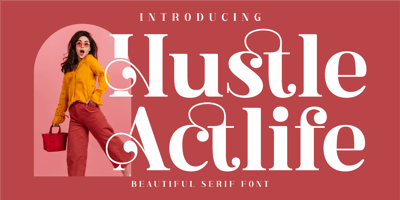
Hustle Actlife
Hustle Actlife font
Hustle Actlife Font Family was designed by Heru Utama Putra and published by Letterena Studios. Hustle Actlife contains 2 styles and family package options. Hi, Everyone! If you’re looking for a cute but elegant font to captivate your audiences or customers then we’ve got the font for you!Introducing Hustle Actlife – A Serif FontThis typeface with elegant style looks very interesting for loads of different projects and promotions. It is perfect to be used on your website, for your social media branding, Pinterest banners, printed products, and more!This font is inspired by the classy style of women who are very luxury so it is perfect for a high-class business.Includes:Hustle Actlife (OTF)Features: Ligatures Alternates Multilingual Support PUA Encoded Numerals and Punctuation